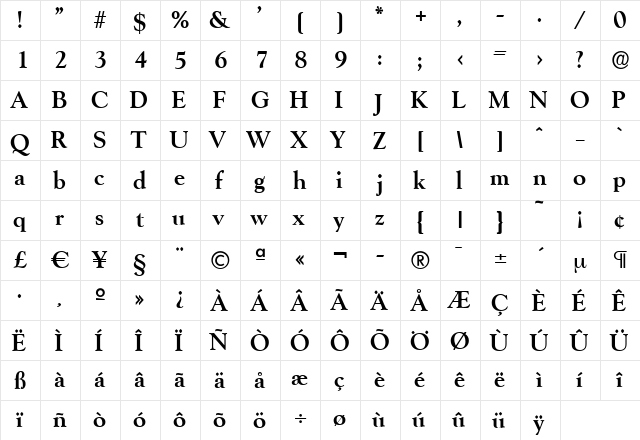
JackBecker Bold
Design Context for JackBecker Typeface
JackBecker offers clean, dependable letterforms without strong stylistic allegiance, making it a practical choice for designers who need flexibility. The heavy weight commands attention and anchors typographic hierarchies.
Pro Tip: Use JackBecker in both headline and body roles to test its range before committing to a single application.